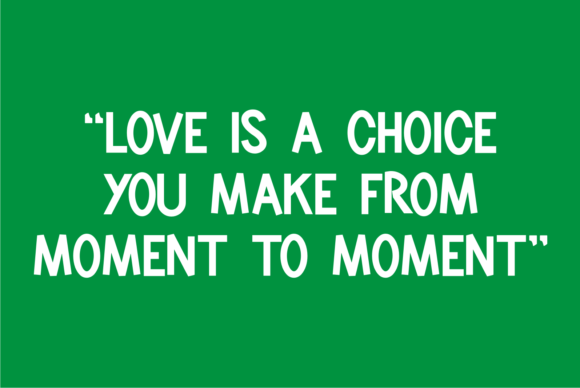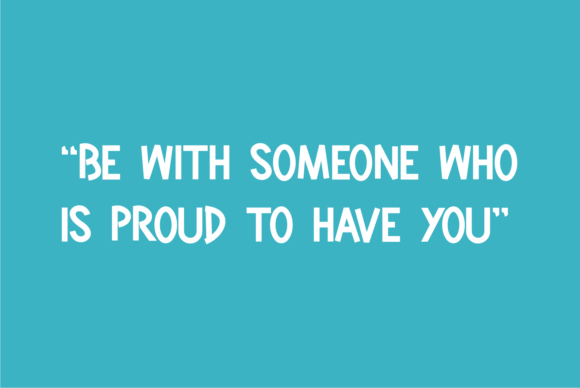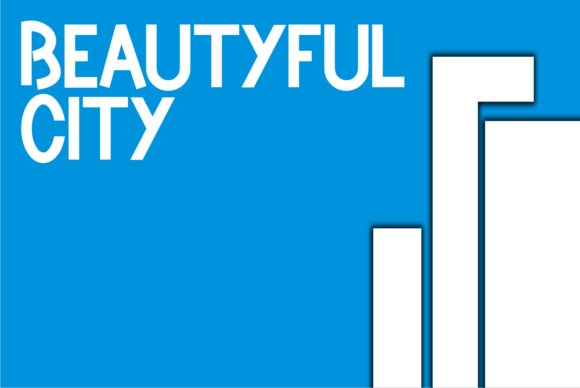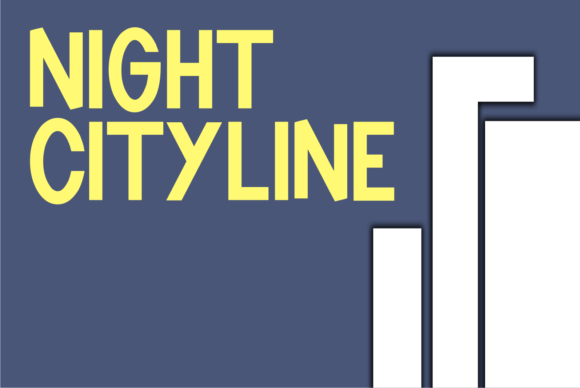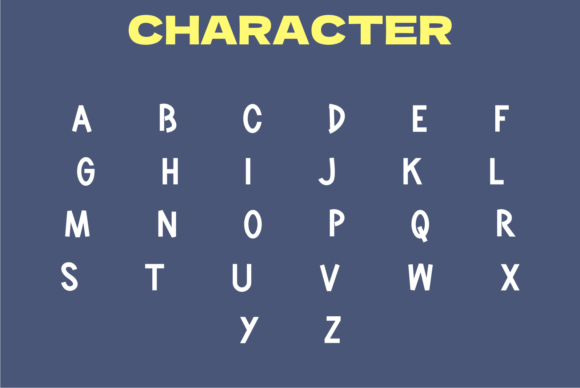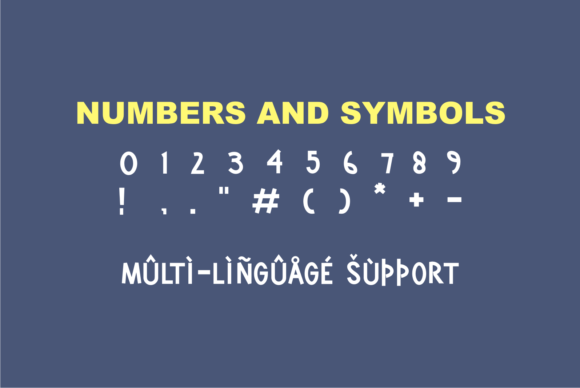
Introduction to Fitor Font
Fitor is a cool and trendy-looking sans serif font.
It is great for logos, badges, clothing, posters, and other projects that need to stand out from the crowd Use this font for your designs, and explore its endless possibilities.